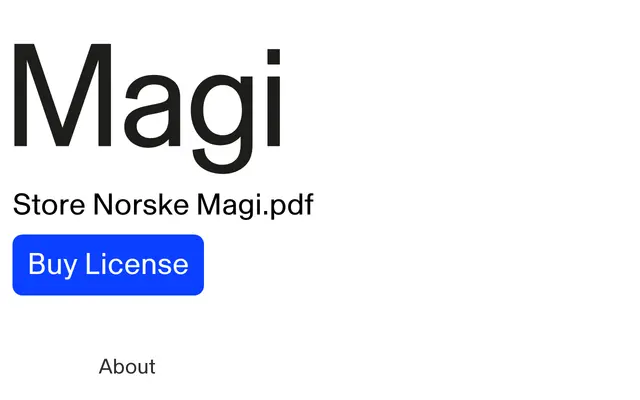
Store Norske Magi
A geometrically constructed sans from Norwegian designer Arve Båtevik, built for civic communication, branding and screen environments with narrow proportions and a monolinear rhythm.
Drawn in the Scandinavian modern tradition, Magi takes its cues from public information typography: orderly, measured and quietly assured. Its narrow proportions and even monolinear structure give it a compact rhythm suited to interfaces, signage and identity systems where legibility and tone need to stay aligned across contexts. A monospaced companion, Magi Mono, extends the family into typewriter-inspired territory, while broad language support covers Western and Northern European scripts including Nordic and Sami languages.
Explicitly described as geometrically constructed with a monolinear structure and narrow proportions, placing it firmly in the geometric sans tradition with a Scandinavian civic character.